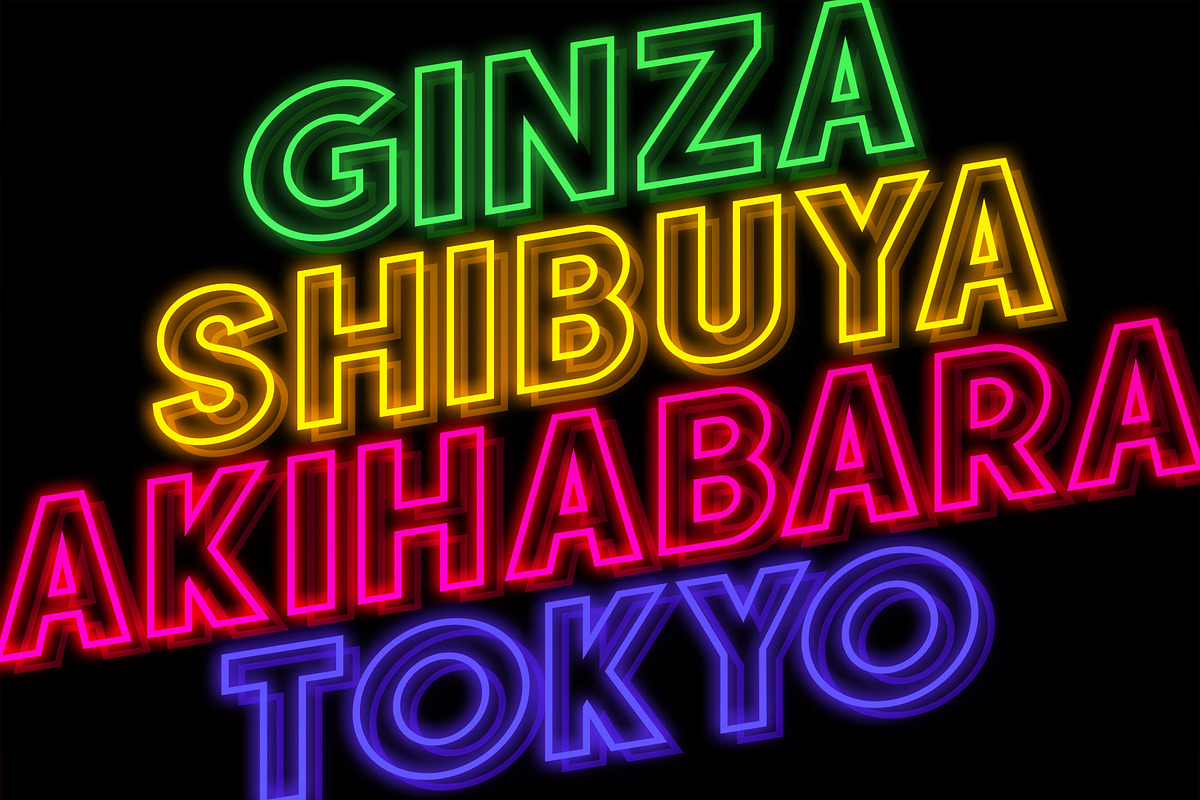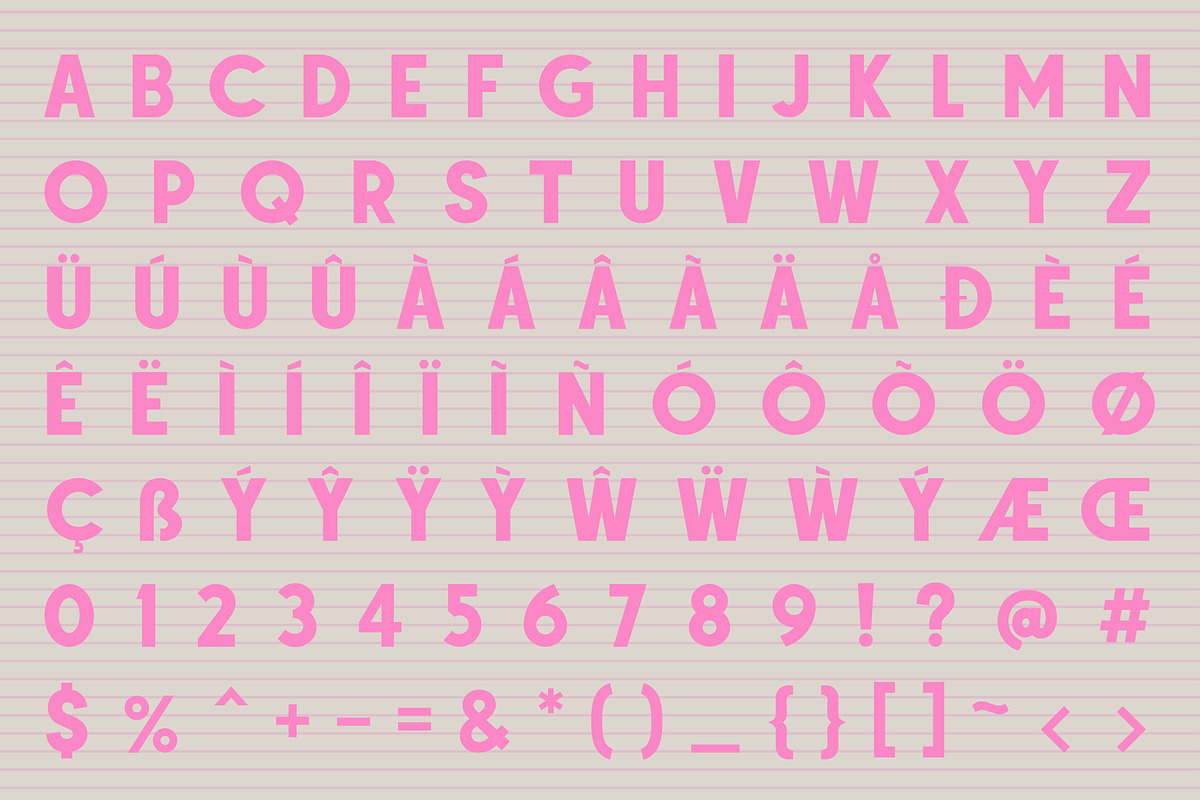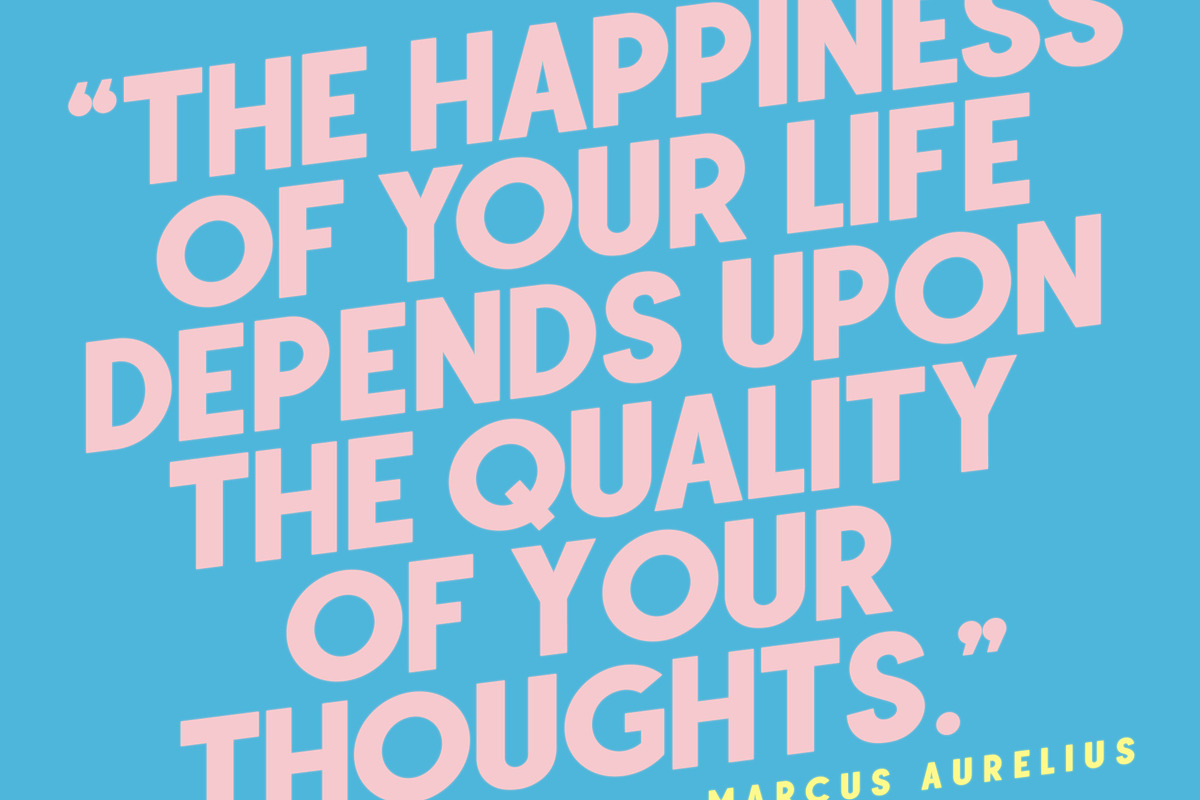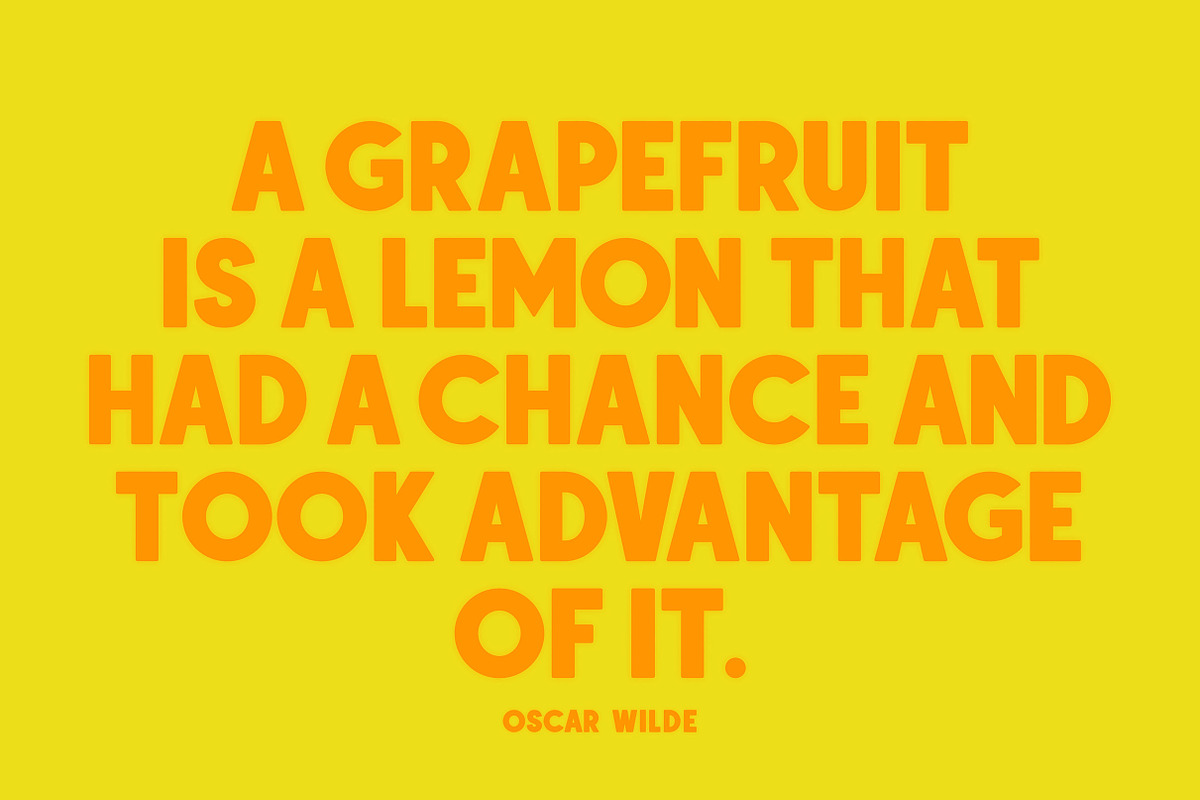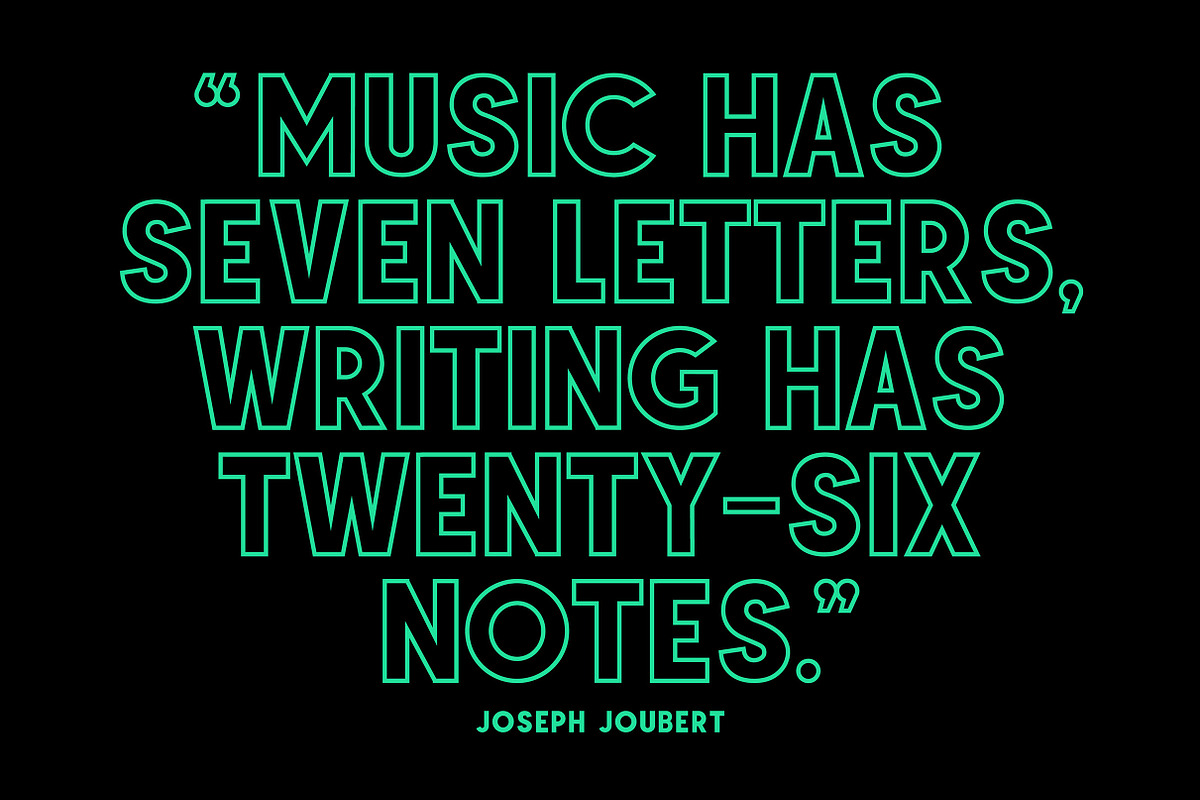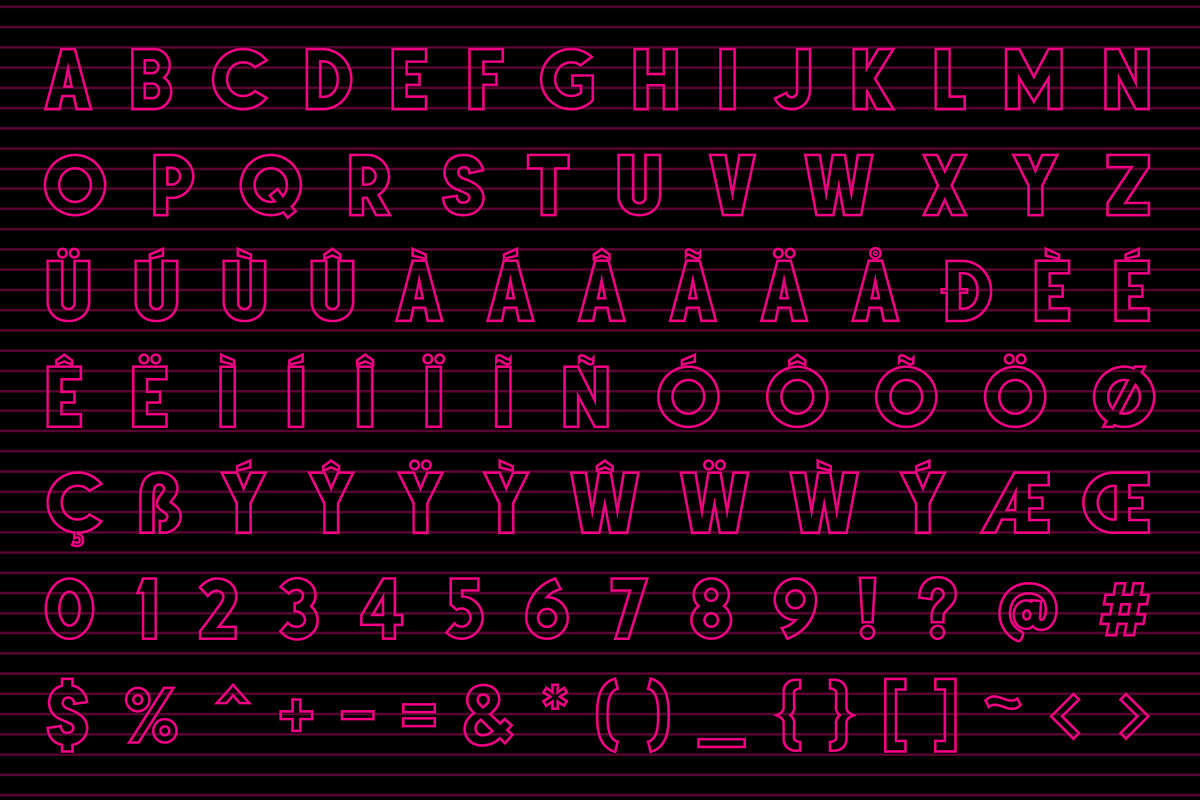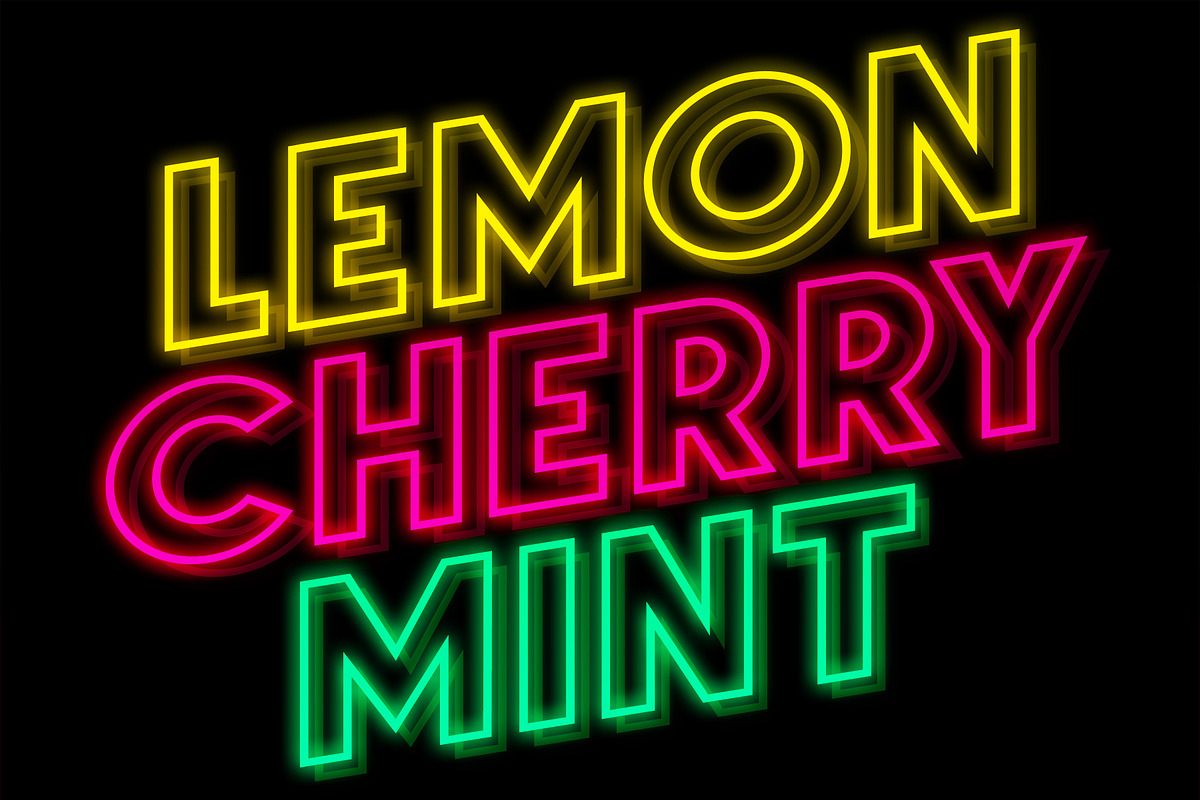
Lemon Cherry Mint Font Duo
Lemon/Cherry/Mint is a big, bold font with some fizzy, pop flavour. It makes an effervescent statement! Good for headlines, posters, merchandise or a can of cream soda.